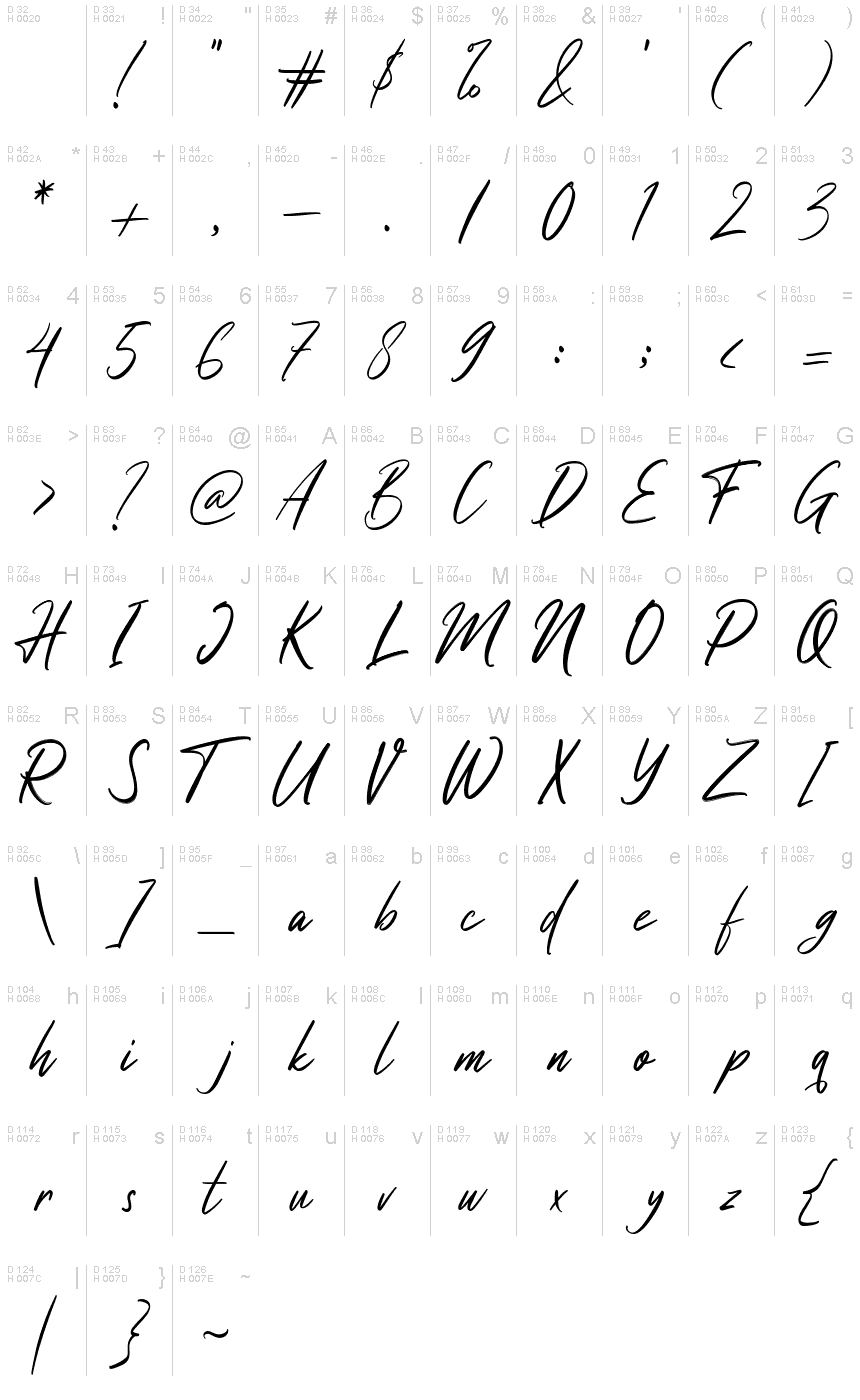
Studiogrand
Studiogrand, a handwritten masterpiece by Ikrar Bey Khubaib, embodies the charm of personal touch in a semi-light stroke.
This font's fluidity and distinct personality lend an air of intimacy to any project, making it ideal for invitations, branding, and editorial designs seeking a blend of elegance and authenticity. With its versatile style, Studiogrand effortlessly adapts to both digital canvases and print mediums, infusing each creation with a sense of artistry unique to the handcrafted aesthetic.
Embrace Studiogrand for your next endeavor where character and sophistication are paramount.